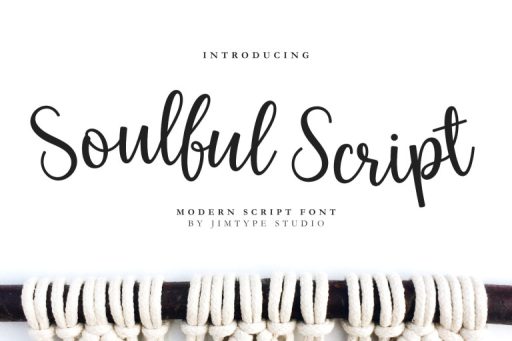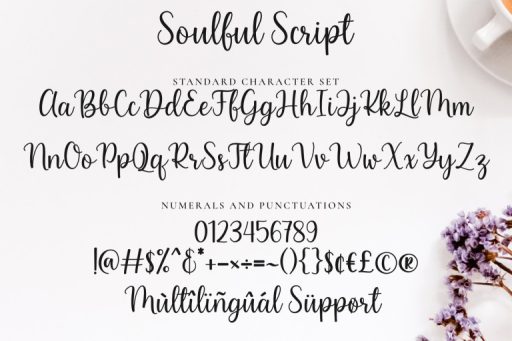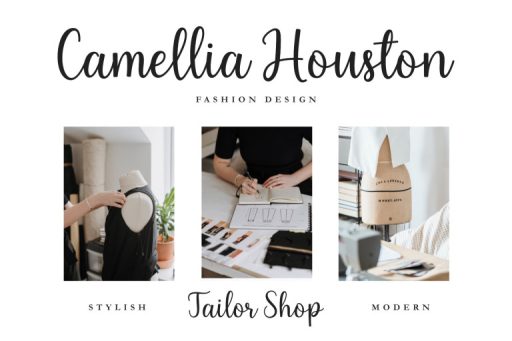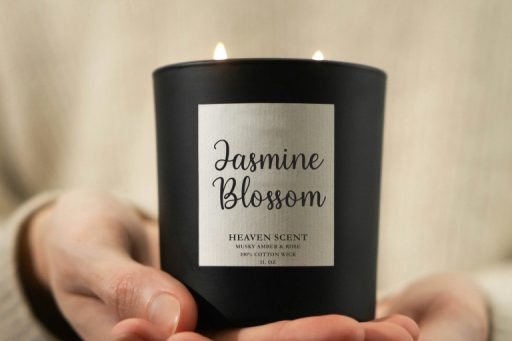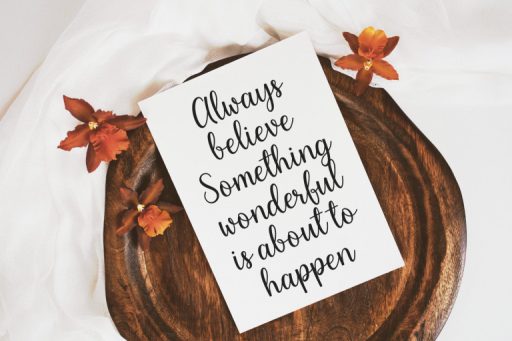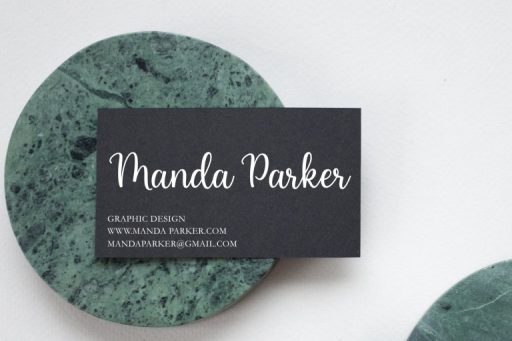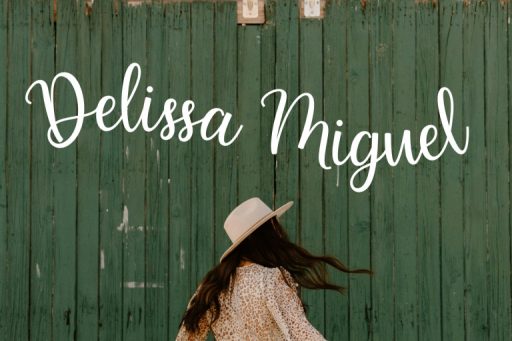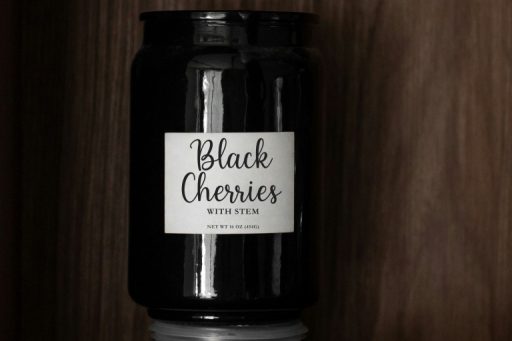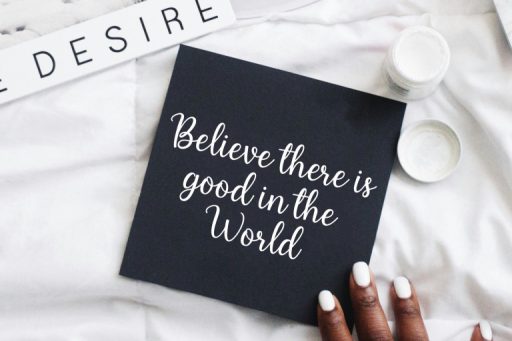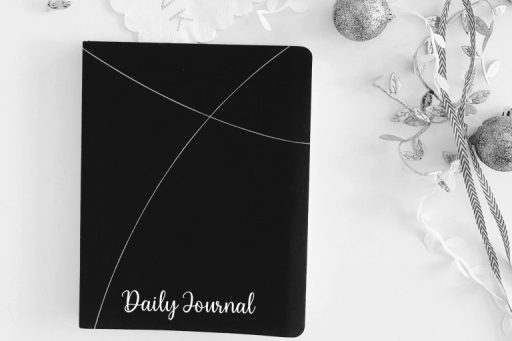
Soulful Script Font - Wedding Branding Font from Jimtype Studio
Soulful Script Font
Soulful Script Font – Business Branding Font from Jimtype Studio
Introducing Soulful Script, a captivating script font designed to elevate your creative projects. Tailored for branding, logos, packaging, websites, Cricut projects, and beyond.
Perfect for creating a lasting impression, Soulful Script is your go-to choice for logos and branding materials. It ensures your brand is distinguished by its unique and memorable typography
Embrace the versatility of Soulful Script Font to transform your projects into a harmonious blend of elegance and personal flair. Ideal for expressing your brand’s identity, enhancing product presentation, and making a statement across various creative mediums.